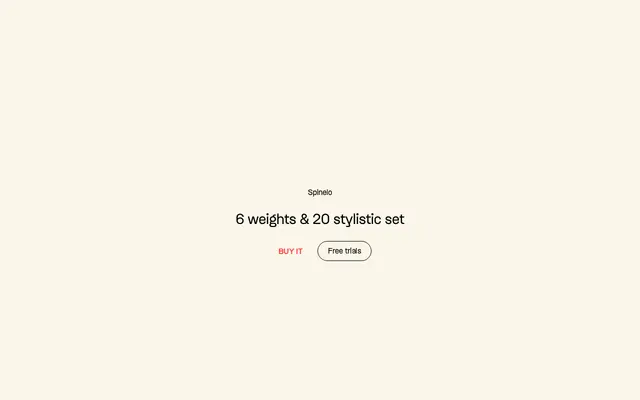
Spinelo
A humanist grotesque with rounded edges and organic forms, designed for body text and drawing inspiration from Antique Olive.
Part of the Glypheon collection, a four-subfamily project themed around metamorphosis and Pokémon evolution, Spinelo is the text-oriented member of the group. Antique Olive is the acknowledged reference point, lending the design its soft terminals, organic rhythm and quiet distinctiveness at small sizes. Twenty stylistic sets across 1,719 glyphs give designers considerable room to vary the typeface's character without switching families.
The foundry describes Spinelo as sitting between humanist and grotesque, inspired by Antique Olive, with rounded edges and organic shapes typical of humanist grotesque hybrids.